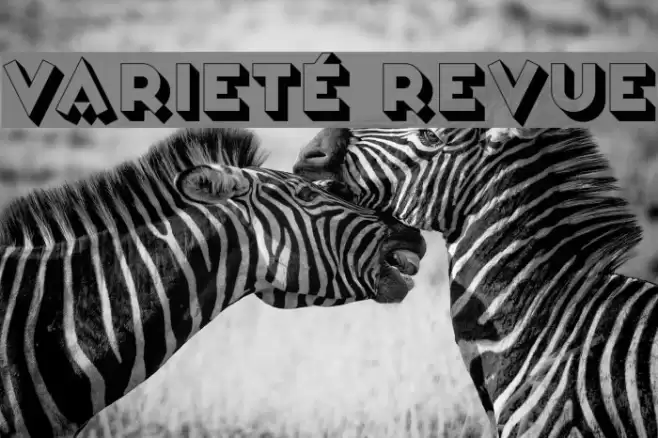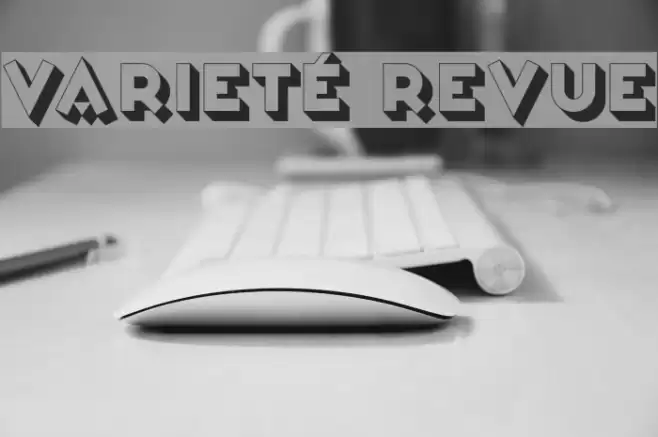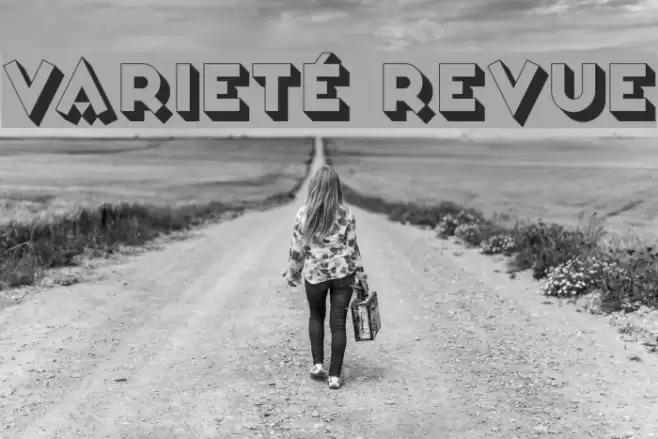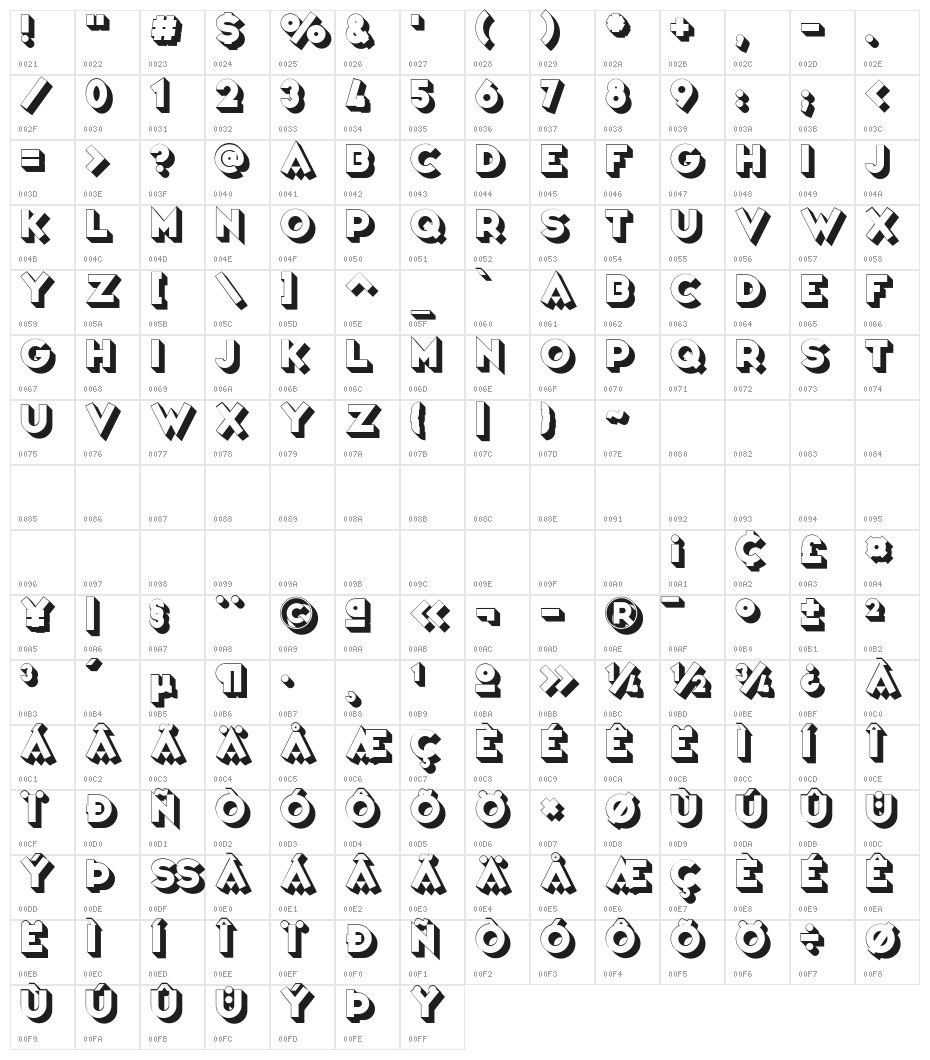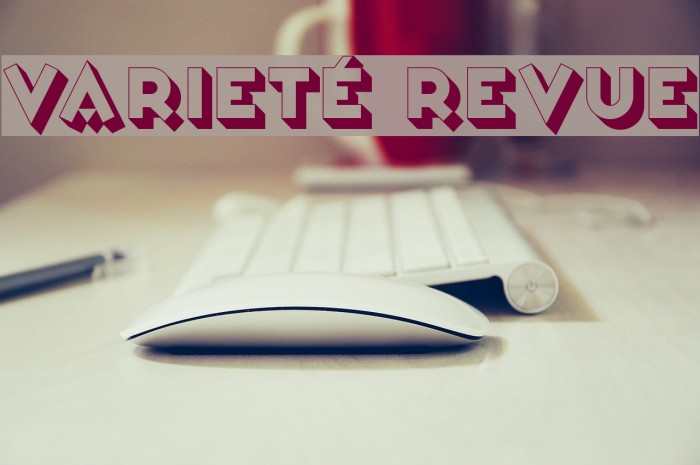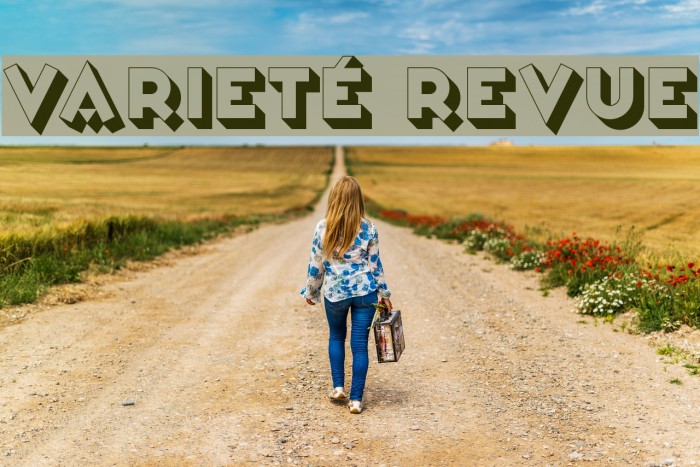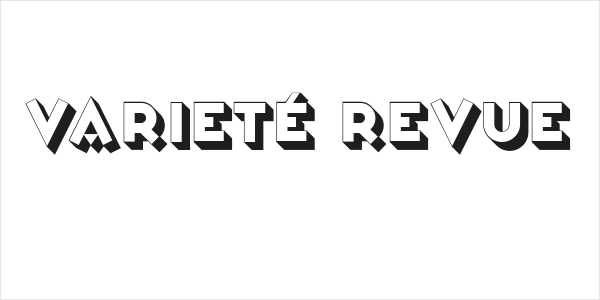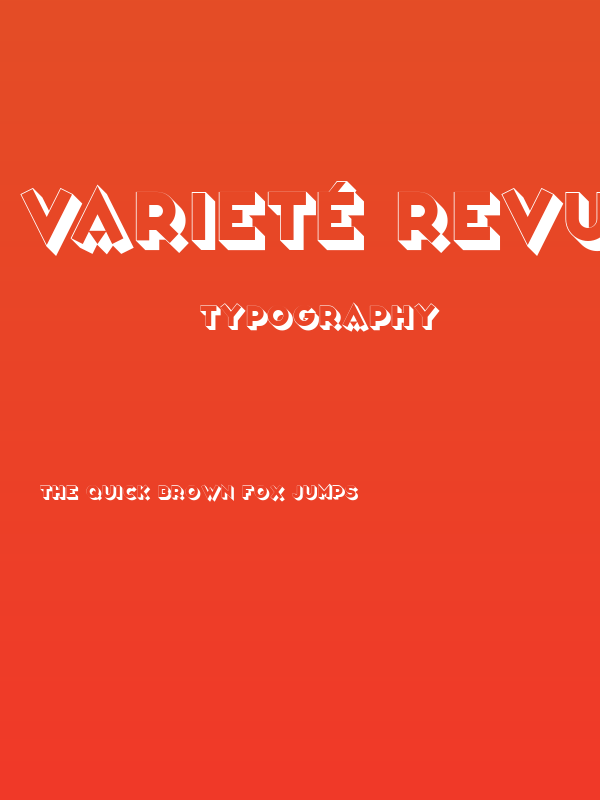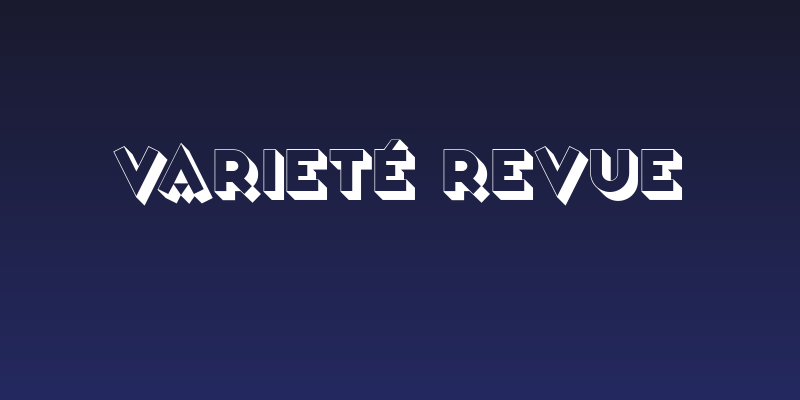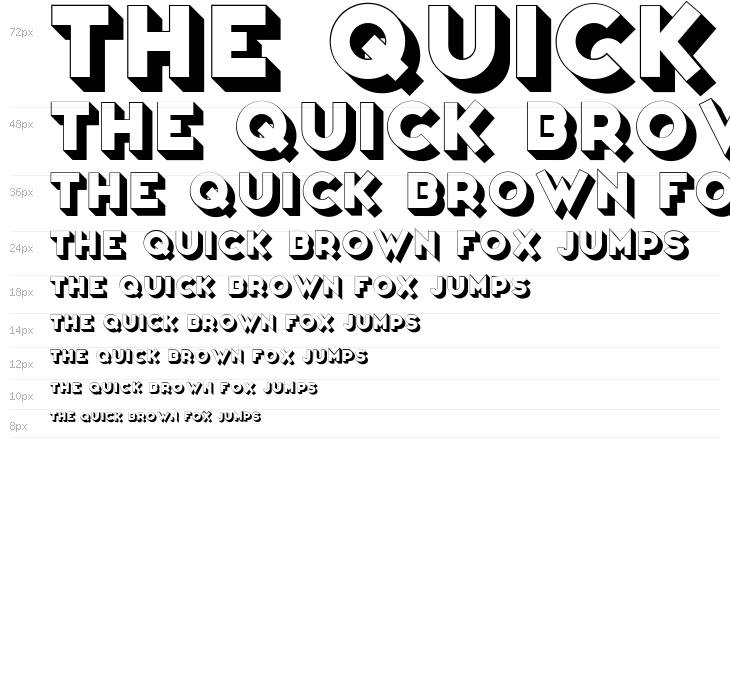
Varieté Revue Font
Varieté Revue Description
This font features a bold, three-dimensional style with a strong shadow effect that gives it a striking, impactful appearance. The uppercase letters are designed with a geometric precision, creating a sense of depth and movement. The characters are wide and expansive, making them ideal for capturing attention. The numbers and special characters maintain the same bold and dynamic style, ensuring consistency across all elements. This font's unique design makes it perfect for projects that require a standout, eye-catching typeface.
A bold, three-dimensional font with strong shadow effects and geometric precision from Uncategorized fonts.
- Proposed Projects: Ideal for posters, headlines, logos, and any design needing a bold, attention-grabbing typeface.
- Width: Expanded